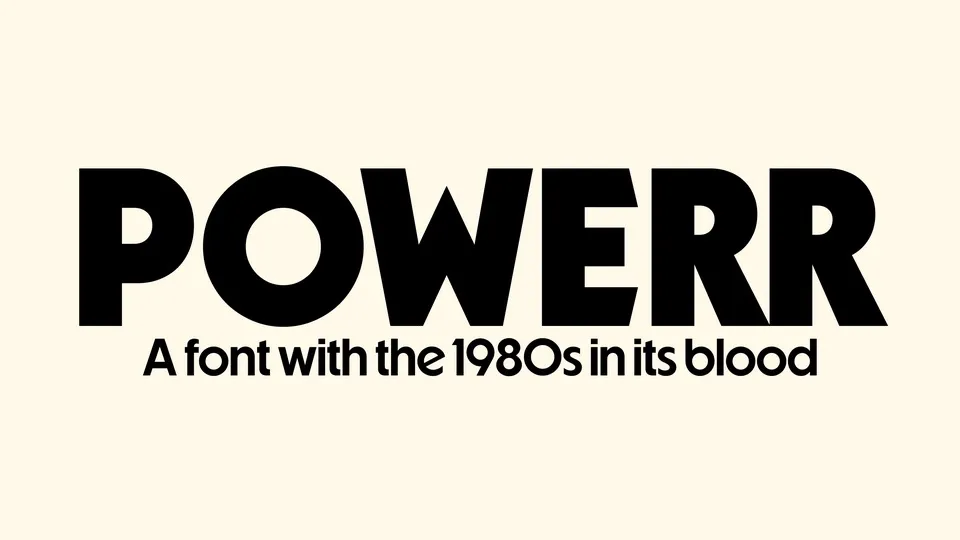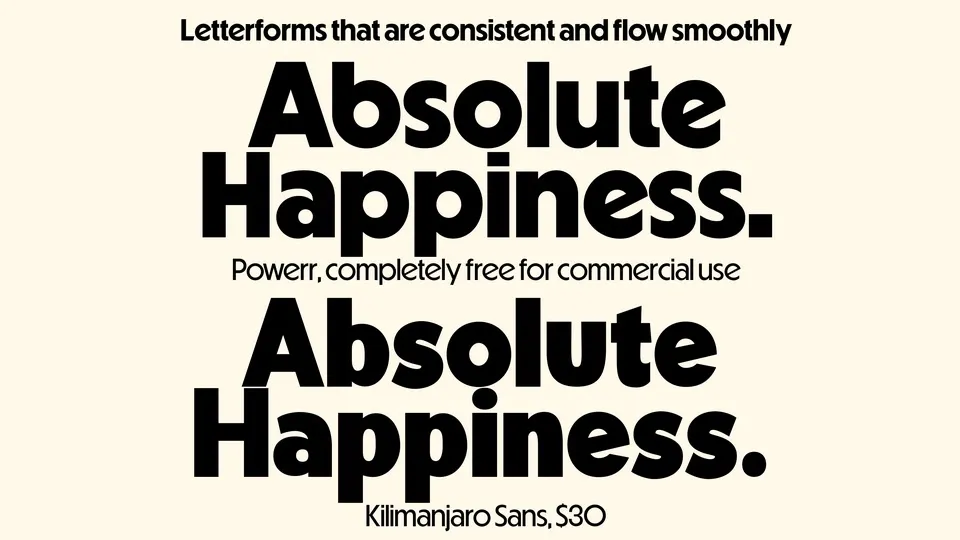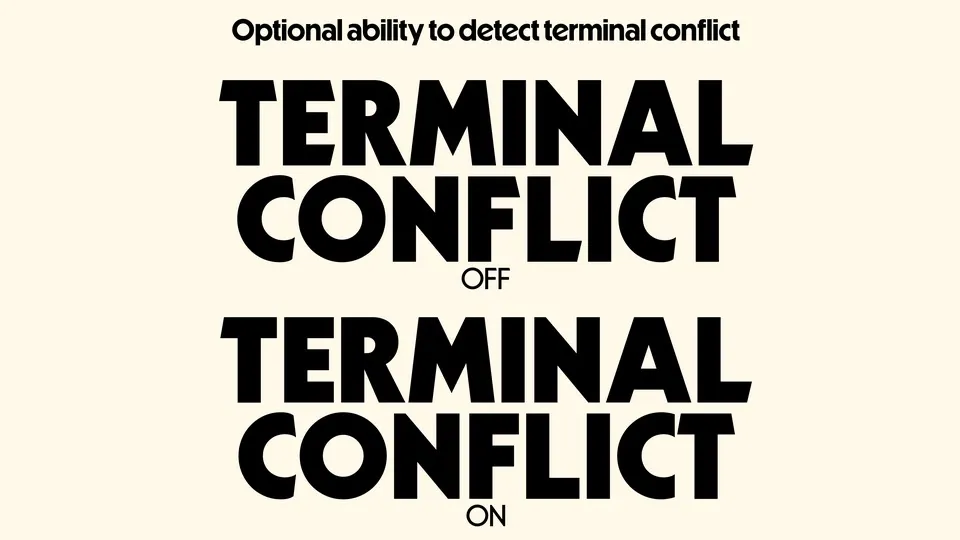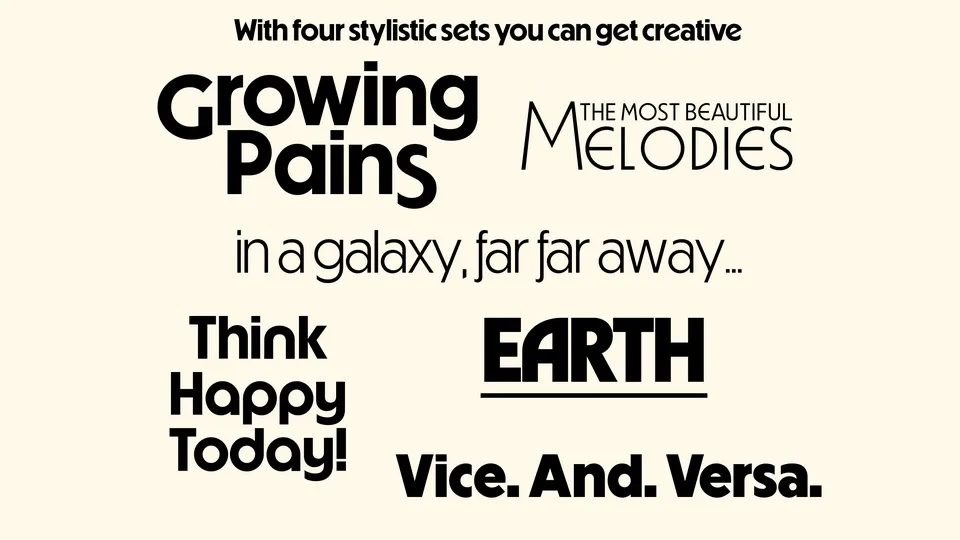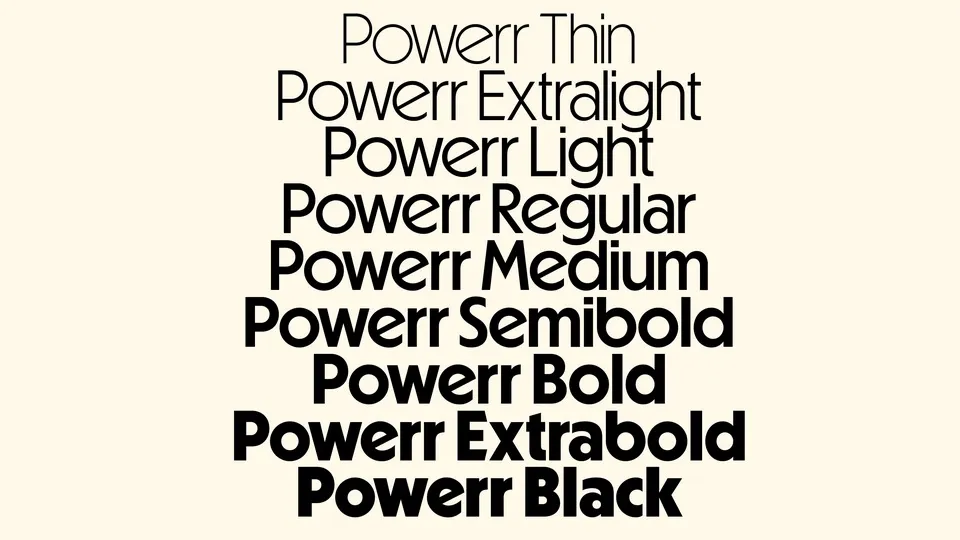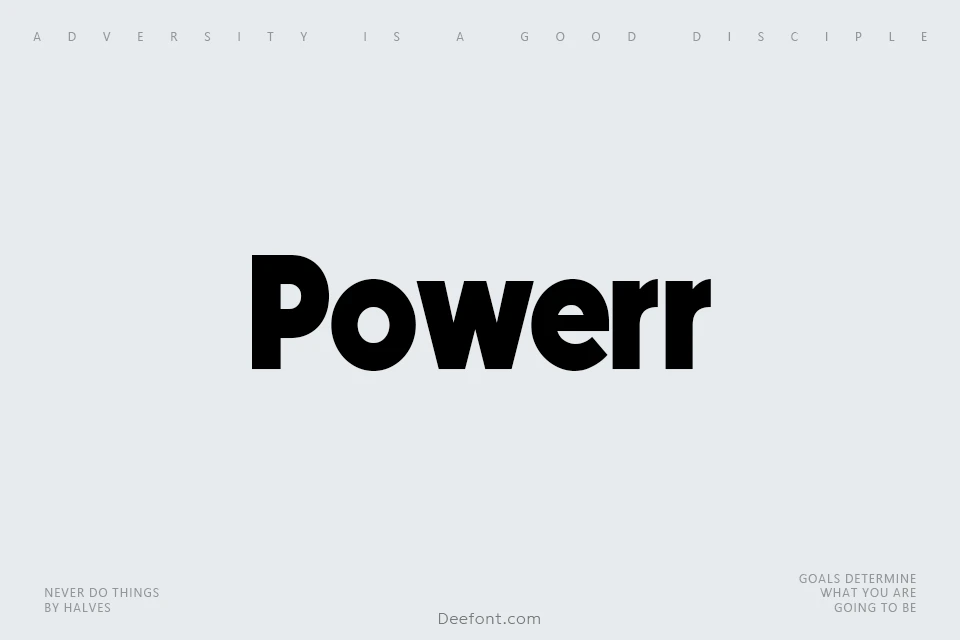
Powerr Font Family
Powerr Font Family is a bold, geometric sans-serif typeface inspired by the energetic and impactful styles of the 1980s. Featuring chunky, block-style letters and a vintage urban aesthetic, this font blends retro charm with a modern edge. Its unique combination of geometric precision and subtle irregularities creates a raw, dynamic feel, making it ideal for headlines, posters, branding, and any design that demands attention.